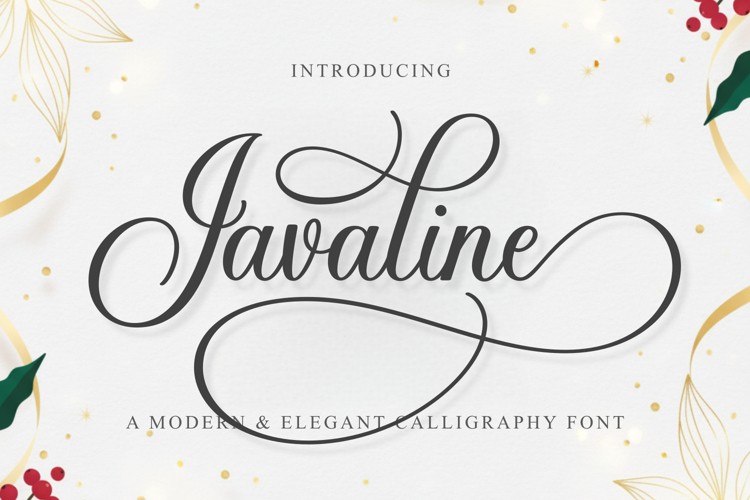
Javaline is a modern calligraphy font that radiates elegance, charm, and sophistication. With its graceful letterforms and beautifully flowing swashes, Javaline is the perfect choice for designs that need a luxurious and feminine touch.
This font is designed to bring beauty and refinement to your creative projects — from wedding invitations, branding, and greeting cards to logo designs, quotes, and social media posts.
Javaline offers a variety of alternates and ligatures that let you create unique and stylish typography with ease. Every stroke feels natural, giving your text a smooth handwritten feel while maintaining a professional look.